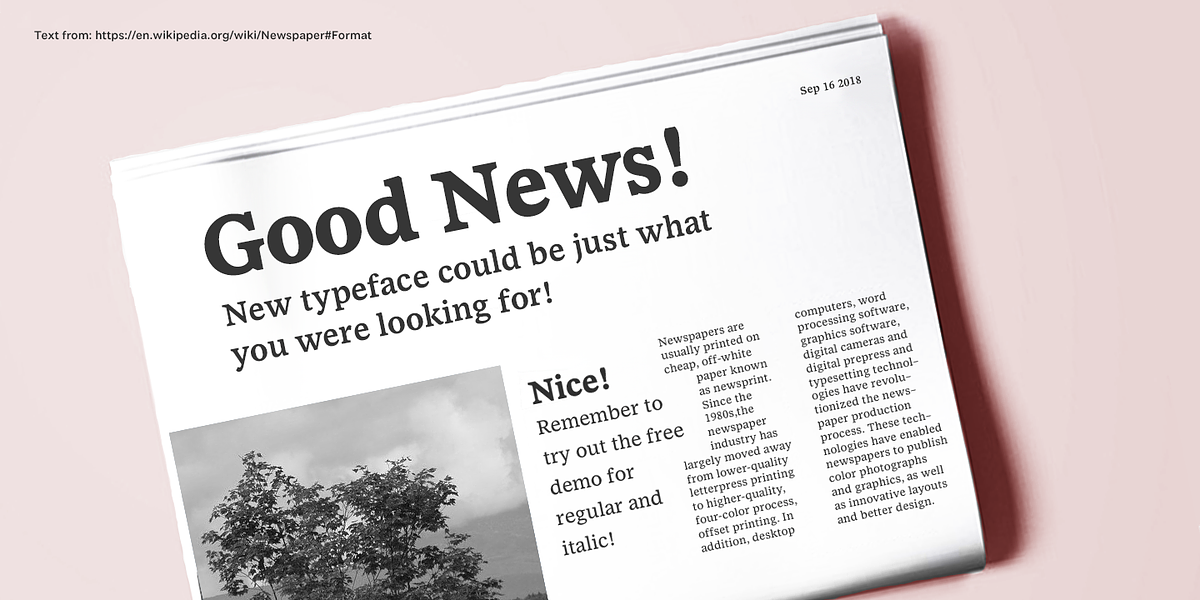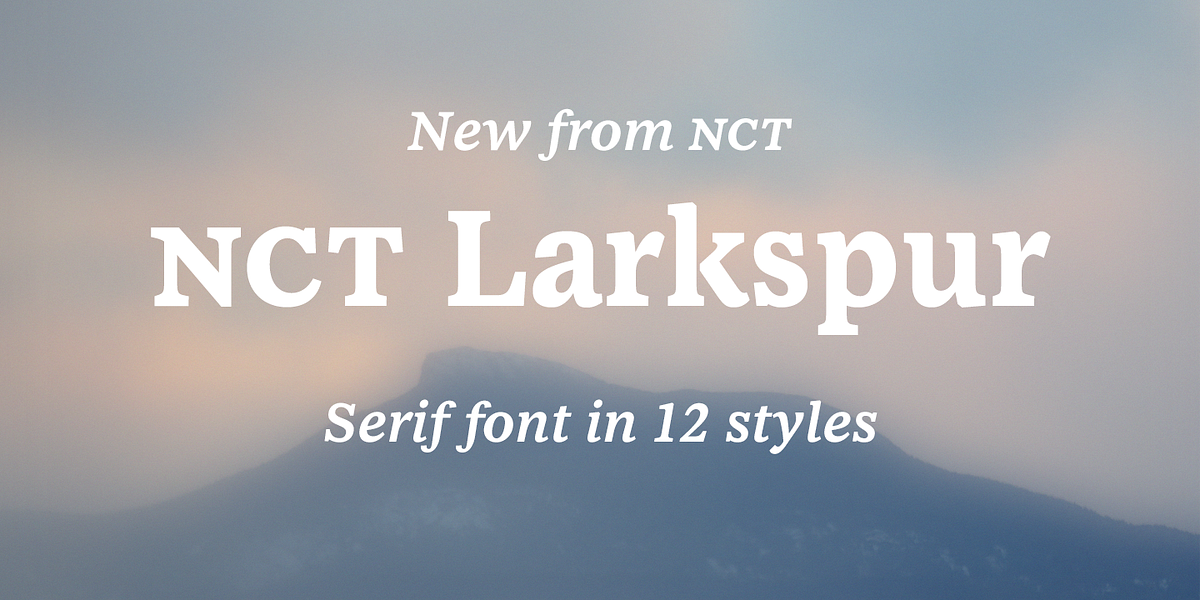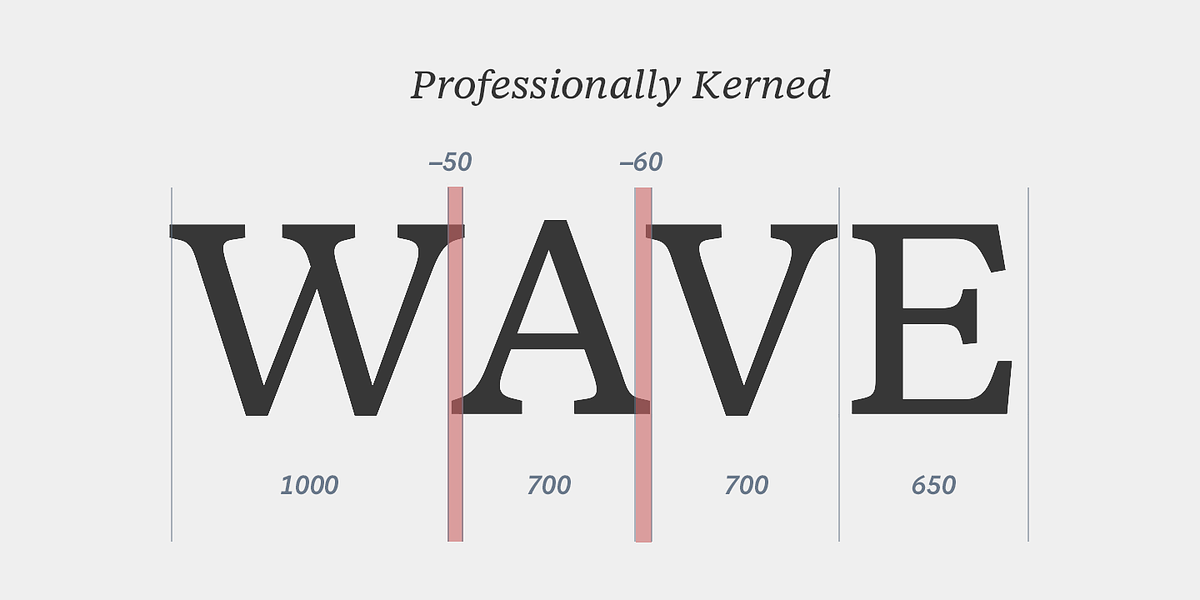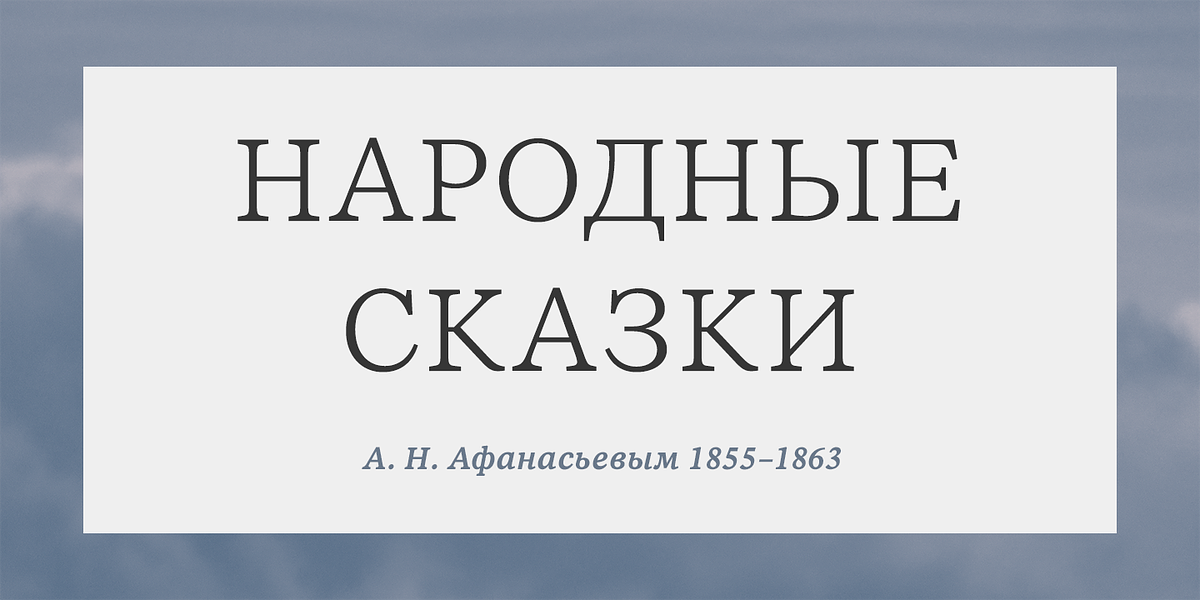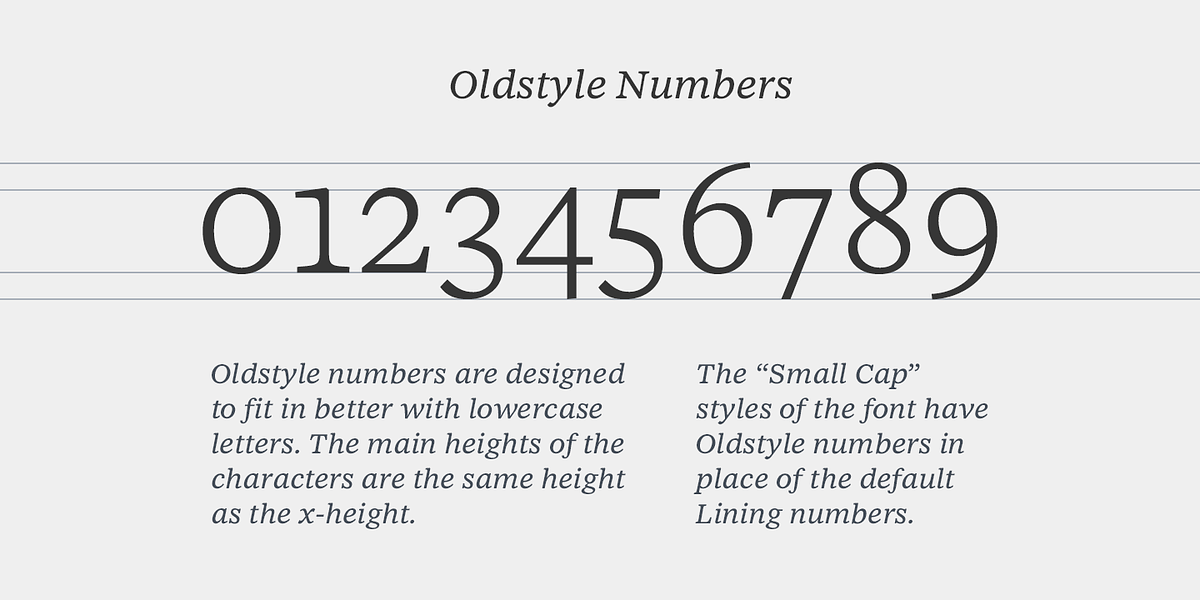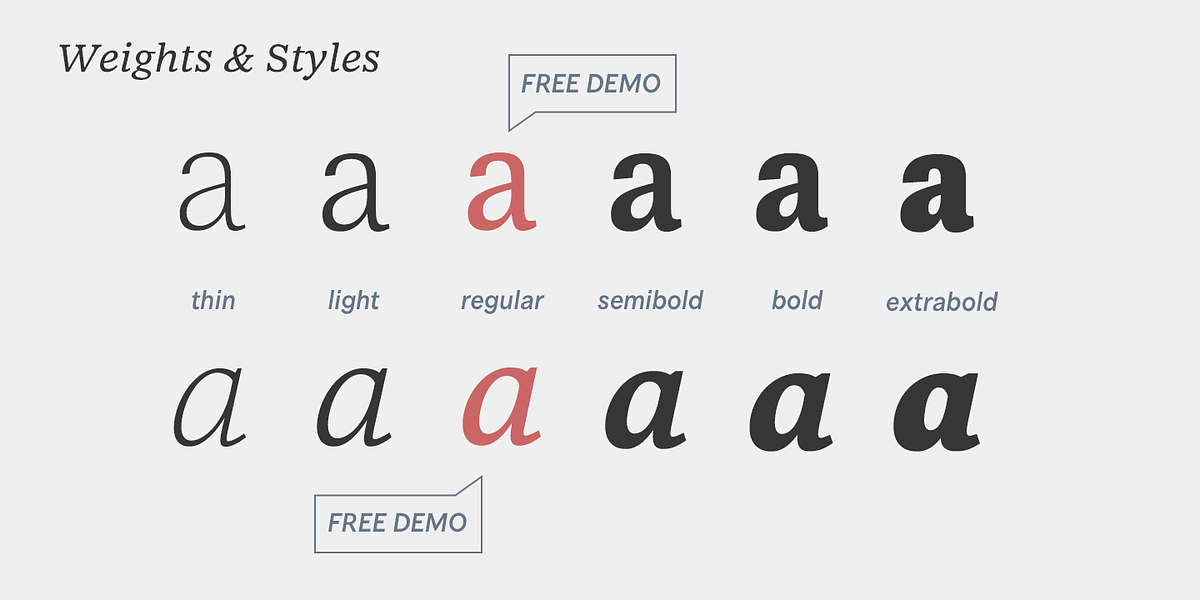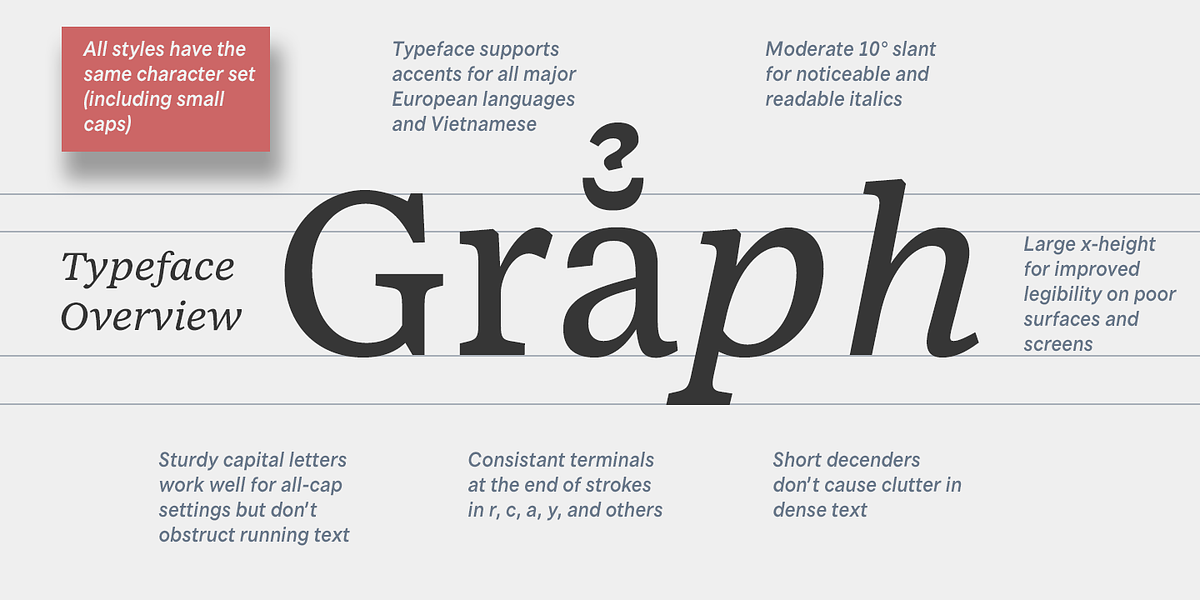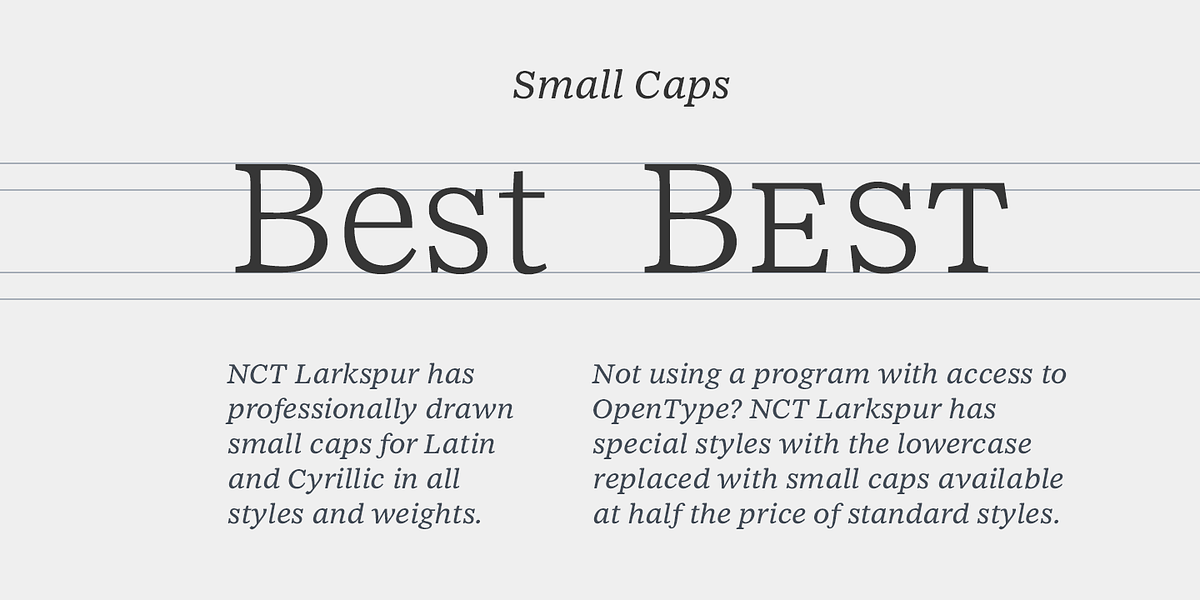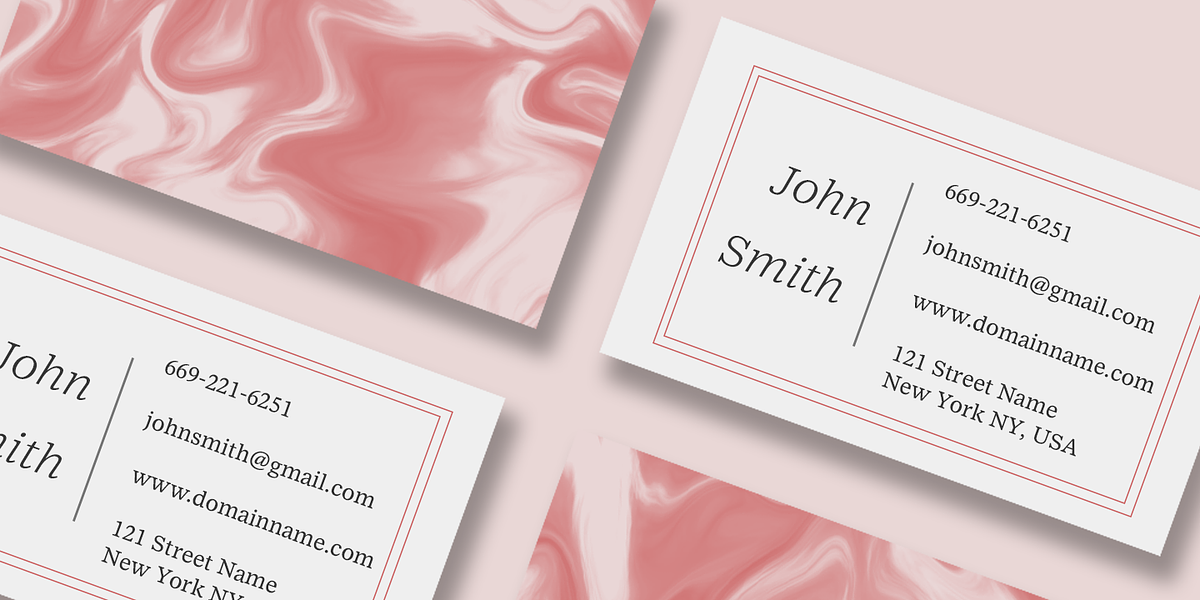
NCT Larkspur
NCT Larkspur is an elegant old-style serif typeface. It's available in 12 main styles and 6 small cap styles, supporting a wide range of languages. The font includes features like fractions, ordinals, tabular and proportional figures, and case sensitive punctuation.